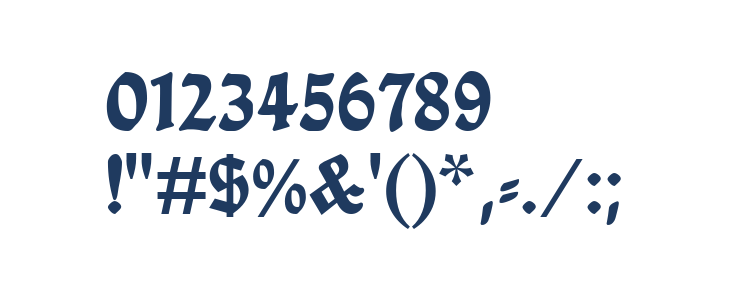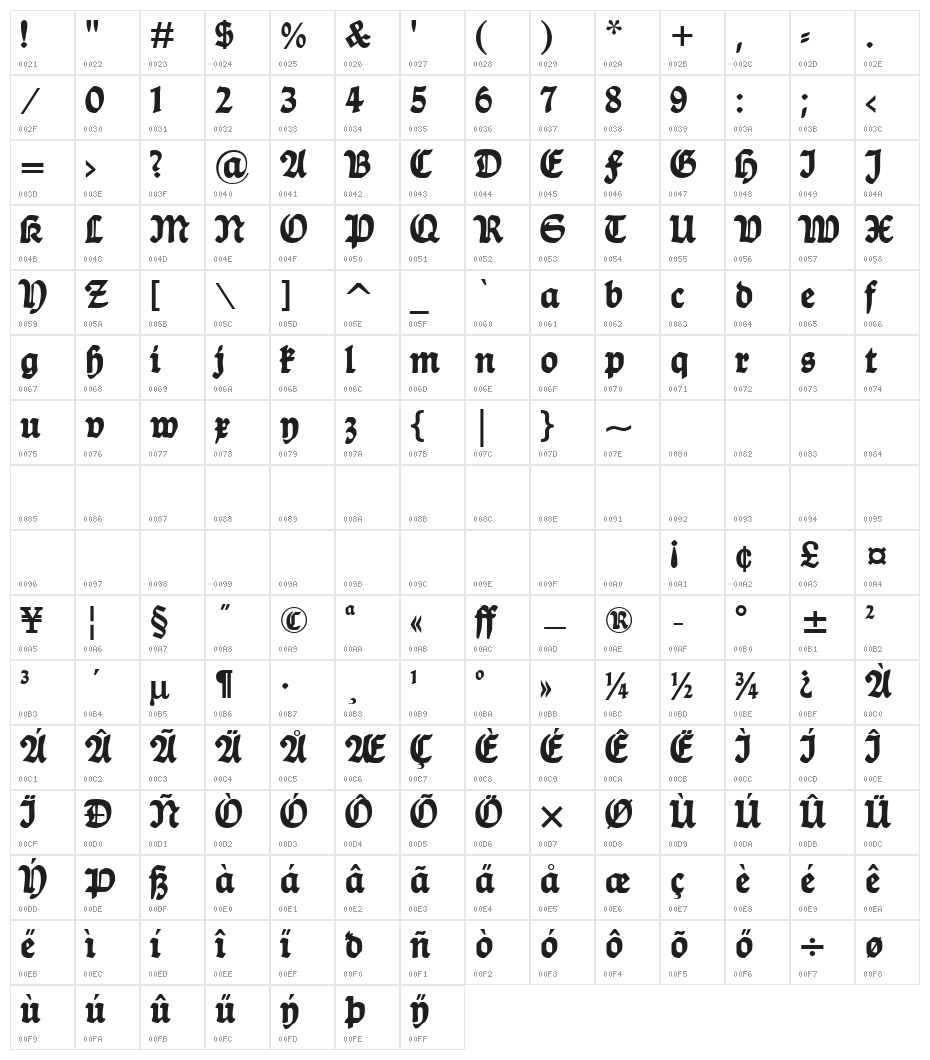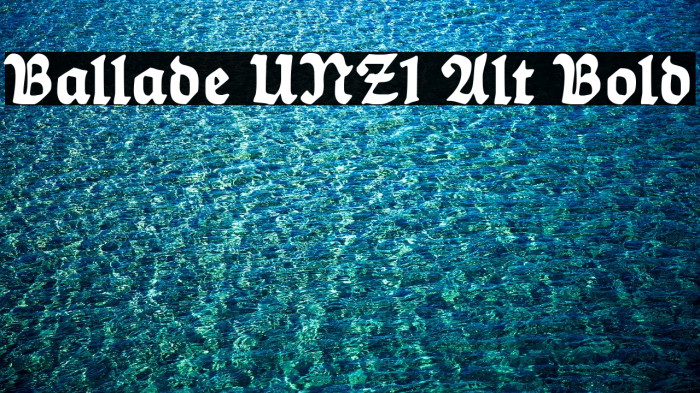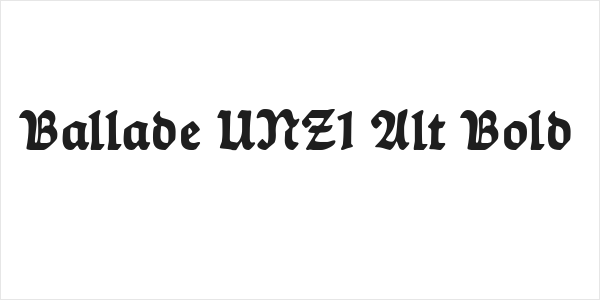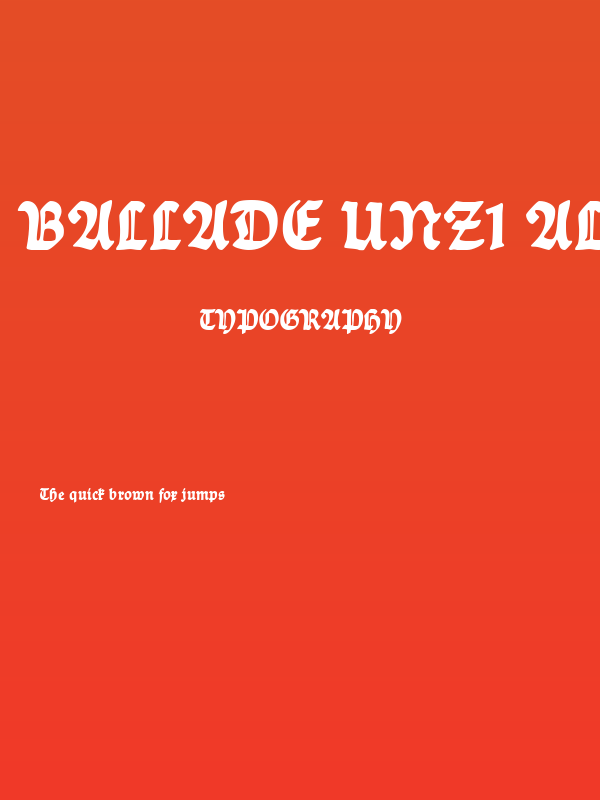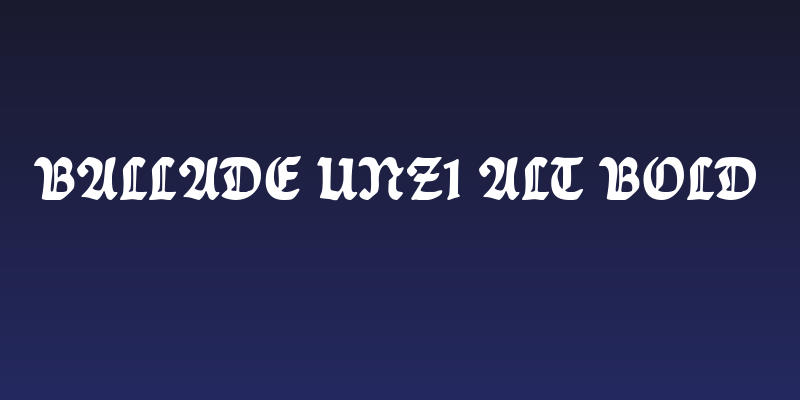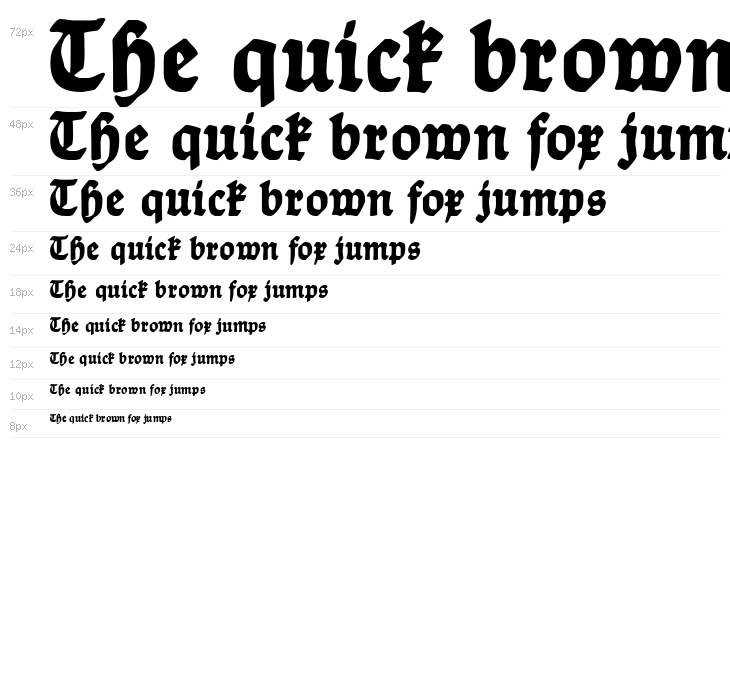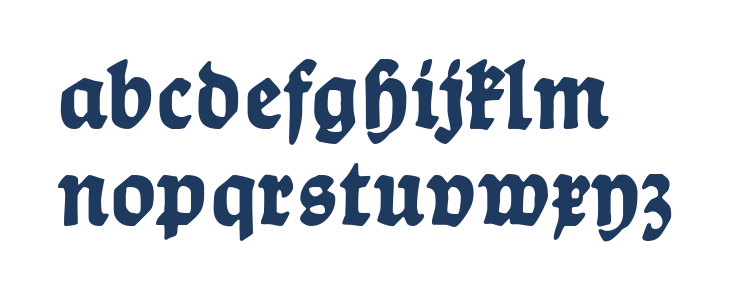
Ballade UNZ1 Alt Bold Font
Ballade UNZ1 Alt Bold Description
This font exhibits a bold and dramatic style, reminiscent of traditional blackletter typefaces. The characters are characterized by their sharp, angular lines and intricate detailing, which evoke a sense of historical elegance and authority. The uppercase letters are particularly striking, with ornate flourishes and a strong presence. The lowercase letters maintain the same boldness, ensuring readability while preserving the decorative nature. The numerals and special characters are consistent with the overall style, offering a cohesive look. This font is ideal for projects that require a touch of classic sophistication and a bold statement.